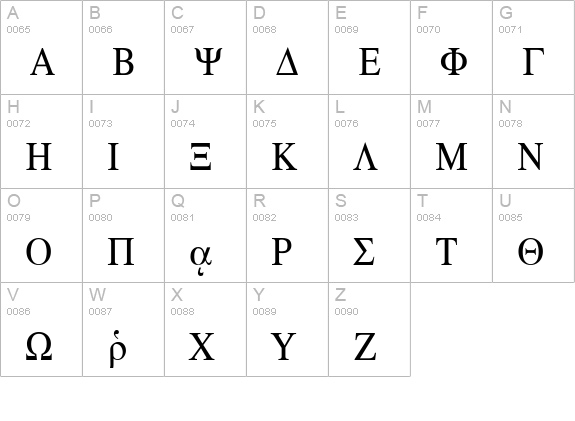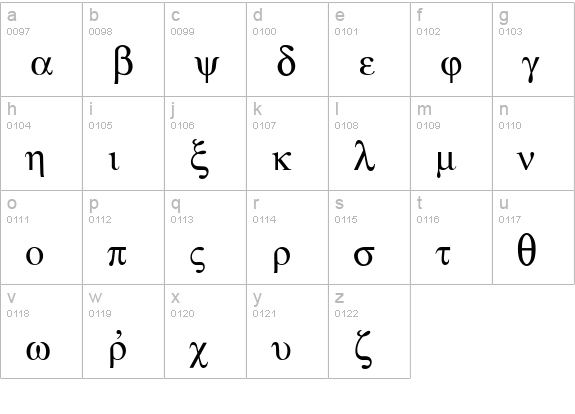
Ismini Font Details
Ismini font is a beautifully crafted typeface that effortlessly combines elegance with a modern edge. Its clean lines and sophisticated curves make it a versatile choice for a wide range of design projects, from branding and advertising to editorial and web design. With its wide range of weights and styles, Ismini font offers endless possibilities for creative expression. Whether you need a bold and impactful headline or a delicate and refined body text, this font has got you covered. Its balanced proportions and legible letterforms ensure that your message is conveyed with clarity and style. But what truly sets Ismini font apart is its availability as a free download. Yes, you read that right - this stunning font is freely available to download at FontsMarket.com. This means that you can access and use Ismini font in all your personal and commercial projects without any limitations. It's a rare opportunity to enhance your designs with a high-quality typeface without breaking the bank. So why wait? Don't miss out on the chance to elevate your designs with the timeless beauty of Ismini font. Head over to FontsMarket.com today and download this exquisite font for free. Unleash your creativity and make a lasting impression with Ismini font.